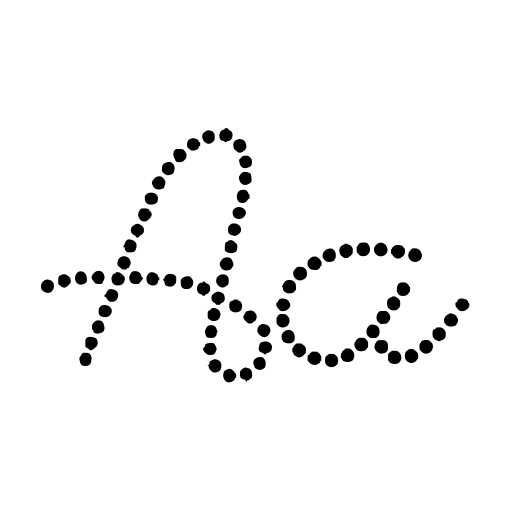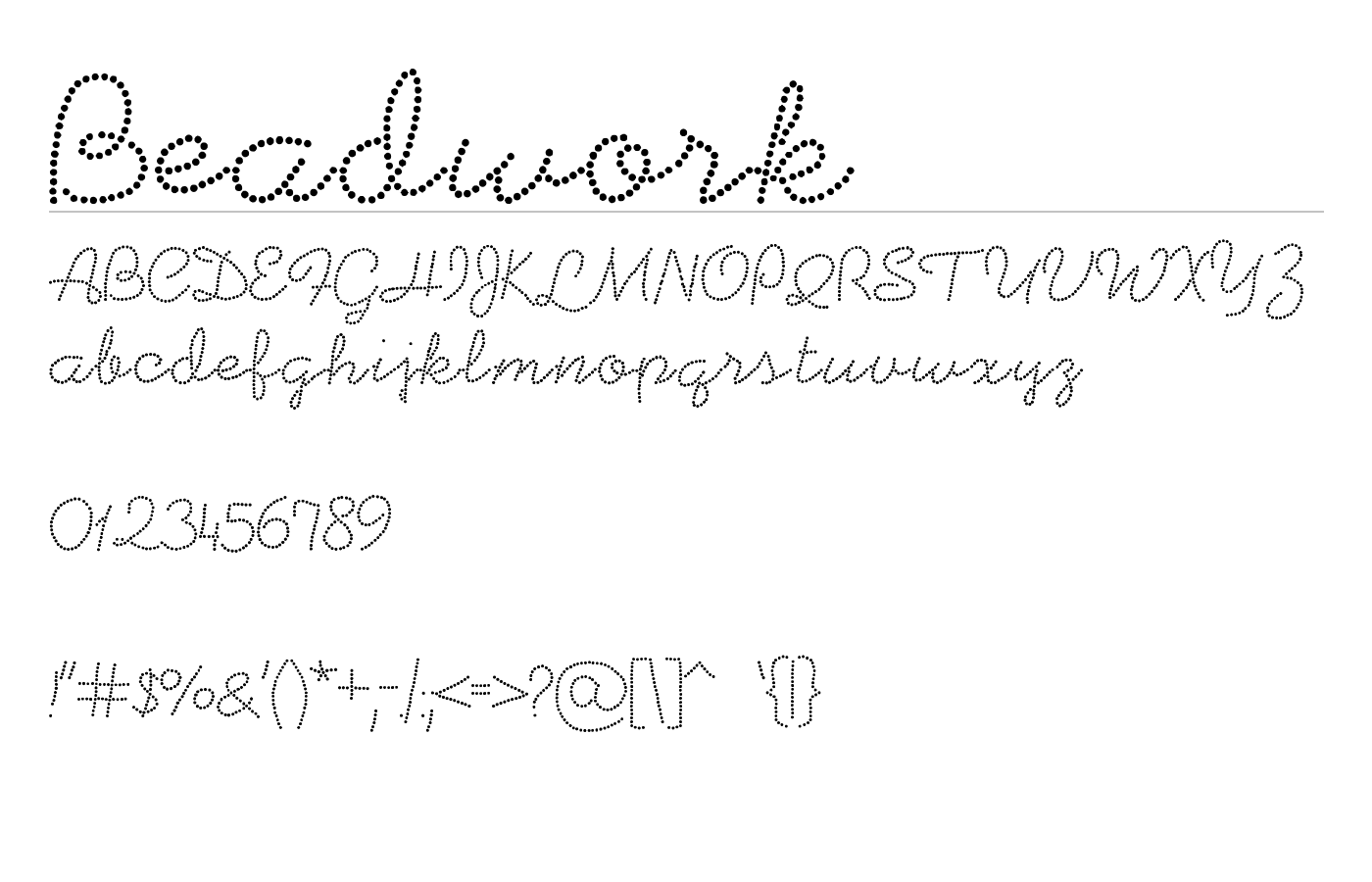
Beadwork is a creative and playful script font composed of small, evenly spaced dots that mimic the look of beadwork or stitching. Its light, airy feel with flowing, connected letterforms makes it ideal for adding a handcrafted, delicate touch to designs. This font works well in invitations, logos, and decorative projects where a whimsical and artisanal style is desired.
Beadwork Font
About Beadwork Font